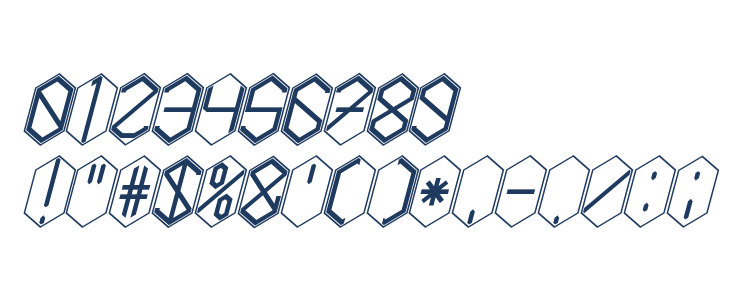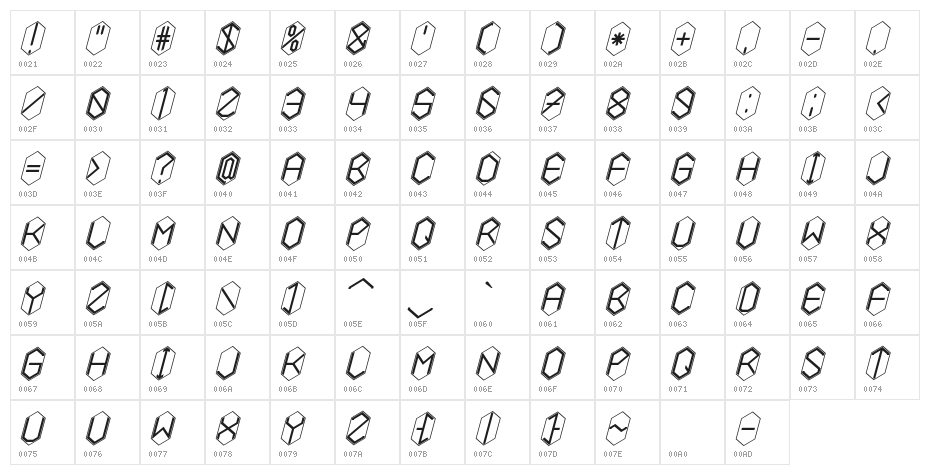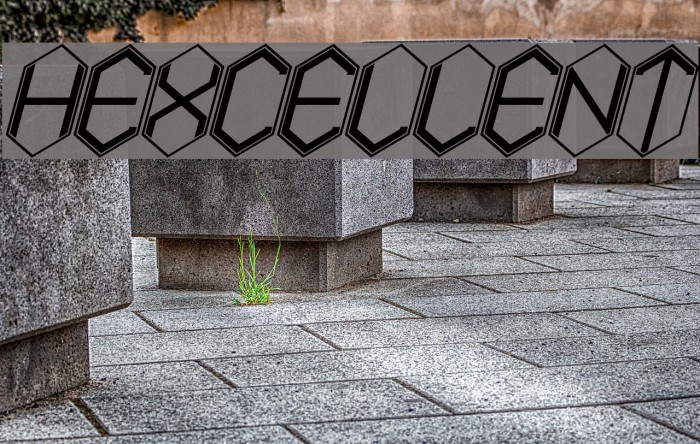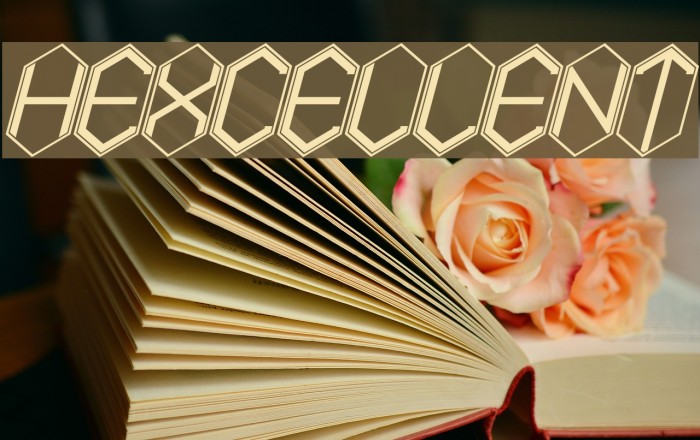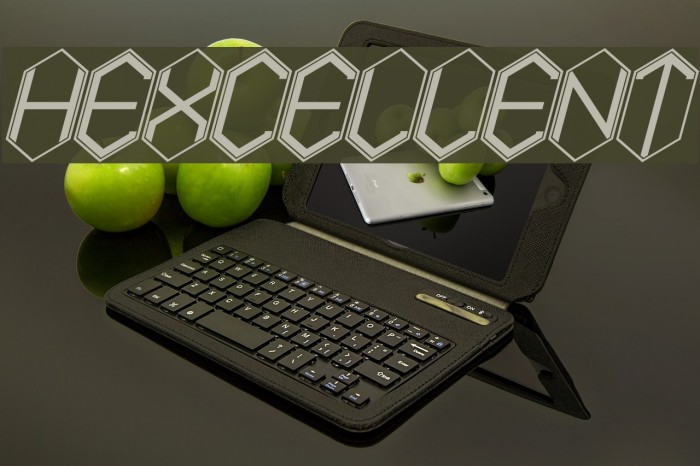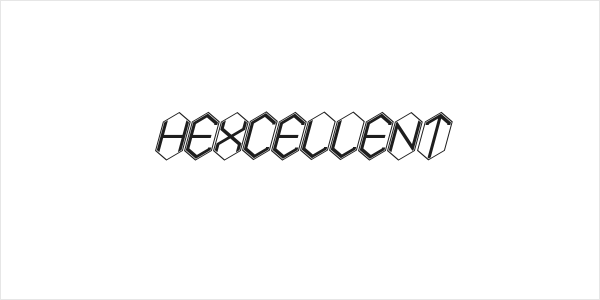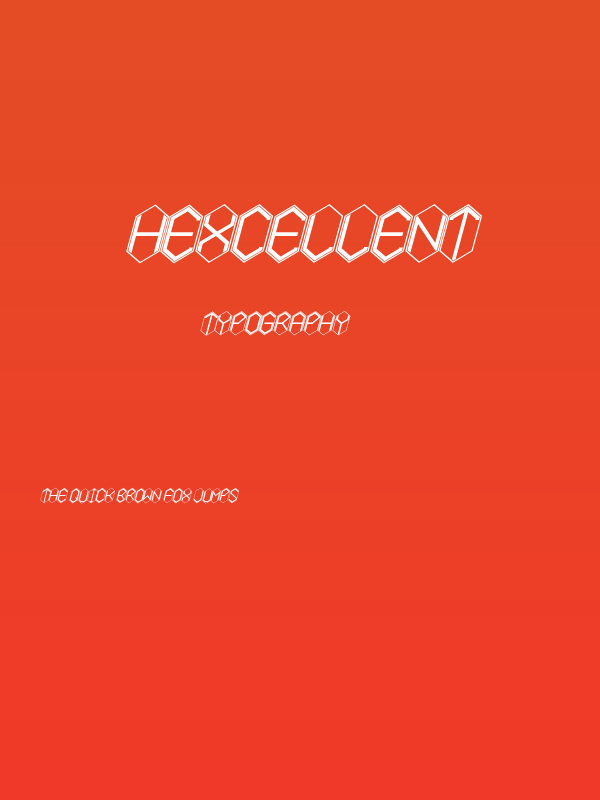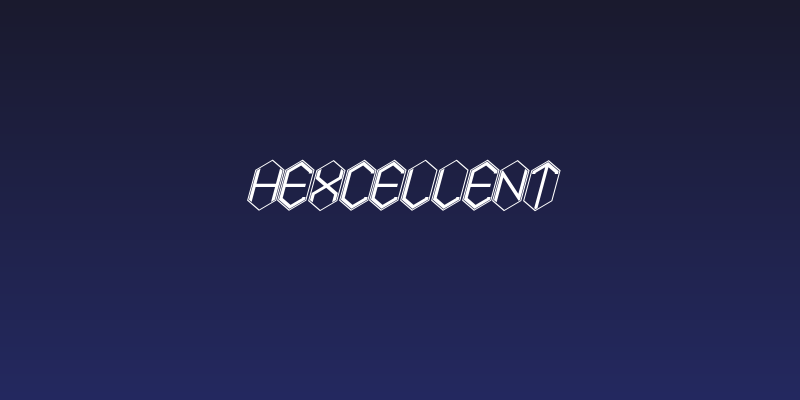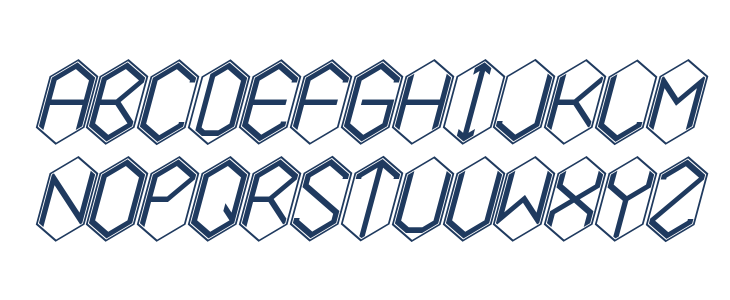
HEXCELLENT Font
HEXCELLENT Description
This font features a unique hexagonal design, giving each character a three-dimensional appearance. The letters are constructed with bold, angular lines that form a honeycomb-like pattern, creating a futuristic and geometric aesthetic. The uppercase and lowercase letters maintain a consistent style, with sharp edges and a uniform structure. Numbers and special characters are designed to match the overall theme, ensuring visual cohesion. The font's distinct style makes it stand out, ideal for projects that require a modern and edgy look.
| Overall Style | Futuristic, Geometric |
| Proposed Projects | Ideal for sci-fi themed posters, modern branding, tech-related logos, and innovative packaging designs. |